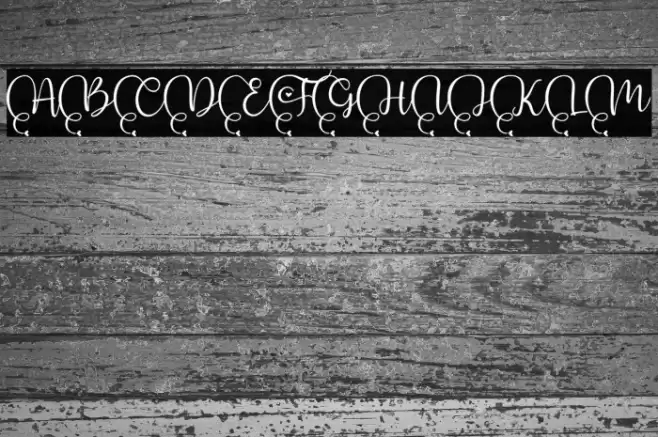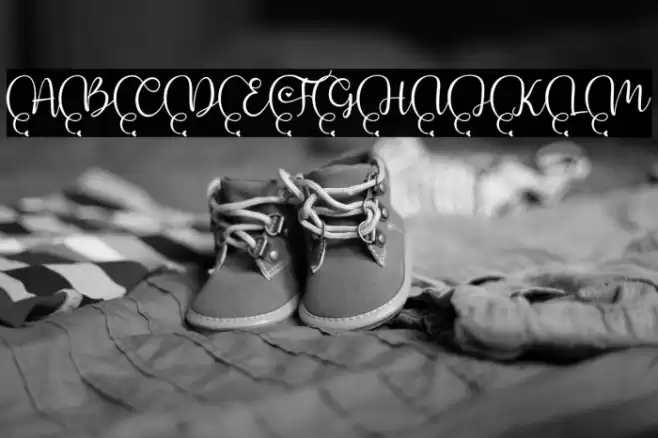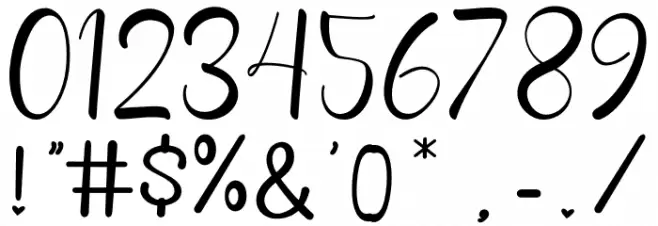
Romantic Fantasy Font
Romantic Fantasy Description
This font exudes a whimsical and romantic charm, characterized by its elegant script style with flourishes and loops that add a touch of fantasy. The uppercase letters are adorned with intricate swirls, creating a sense of movement and grace. The lowercase letters maintain a fluid and cursive appearance, enhancing the overall romantic feel. The numerals are consistent with the script style, offering a cohesive look. Special characters are designed with similar embellishments, ensuring they blend seamlessly with the rest of the font. This font is perfect for projects that require a touch of elegance and fantasy, such as wedding invitations, greeting cards, or fantasy-themed branding.
A whimsical script font with elegant flourishes and a romantic fantasy style from Uncategorized fonts.
- Proposed Projects: Ideal for wedding invitations, greeting cards, fantasy-themed branding, and decorative projects.
- Overall Style: Romantic, Decorative
- Use Case: Headlines, Logos, Invitations